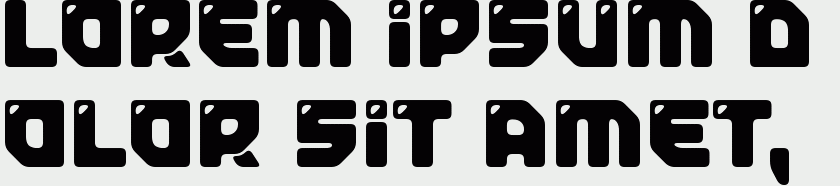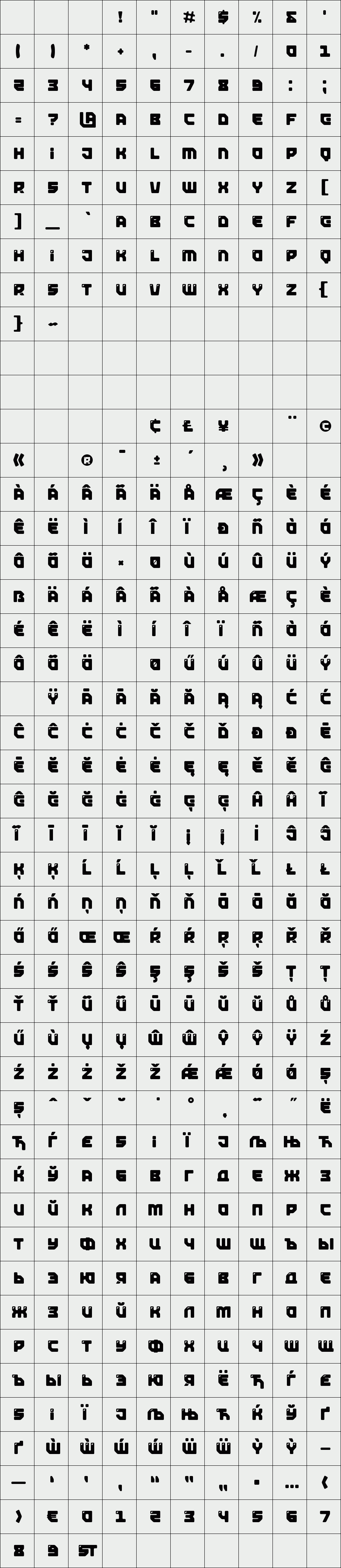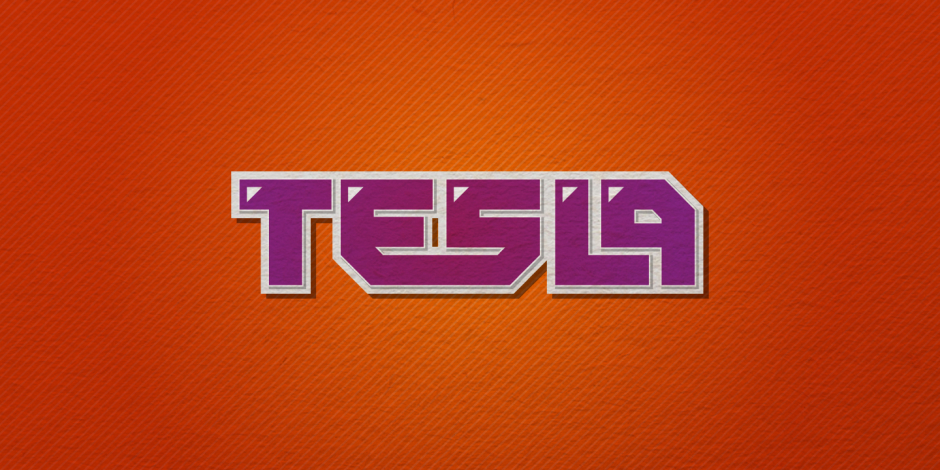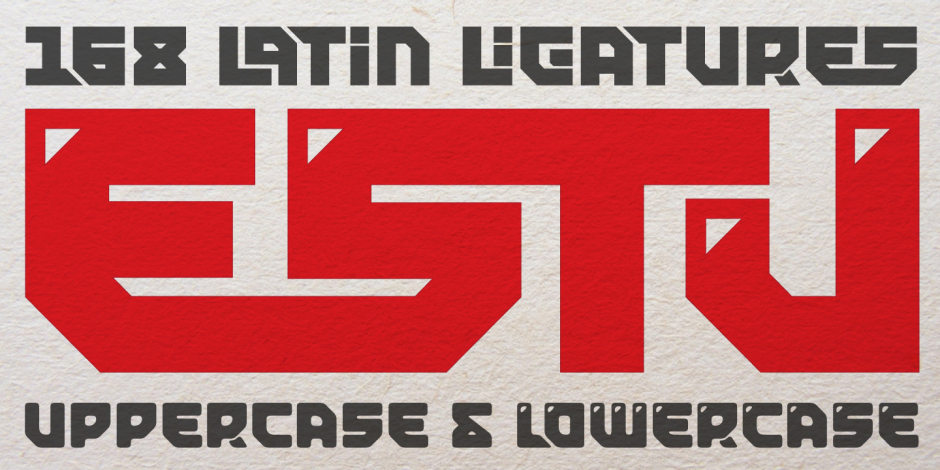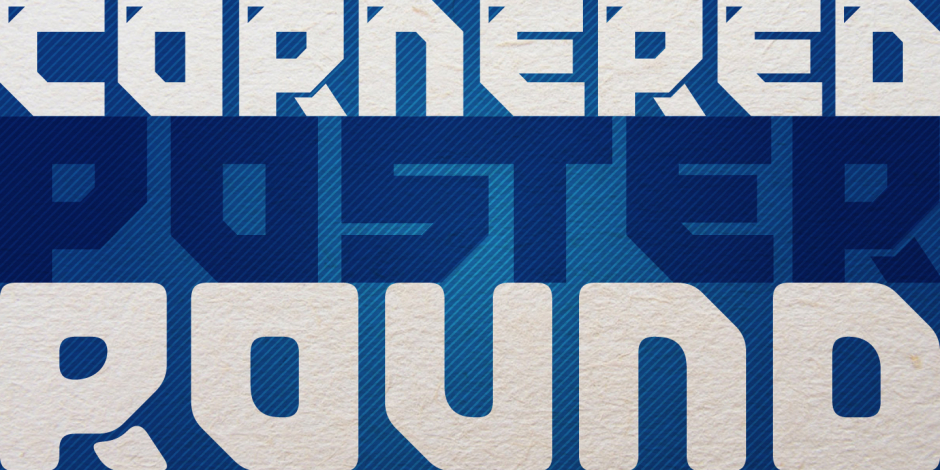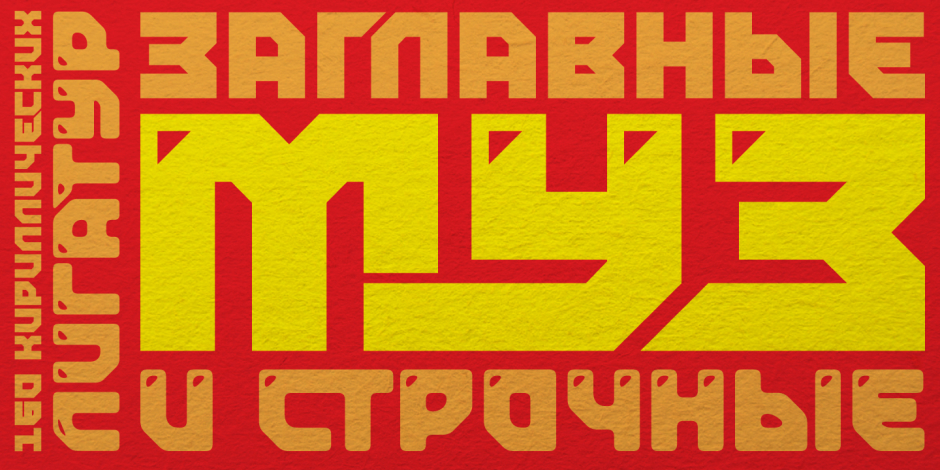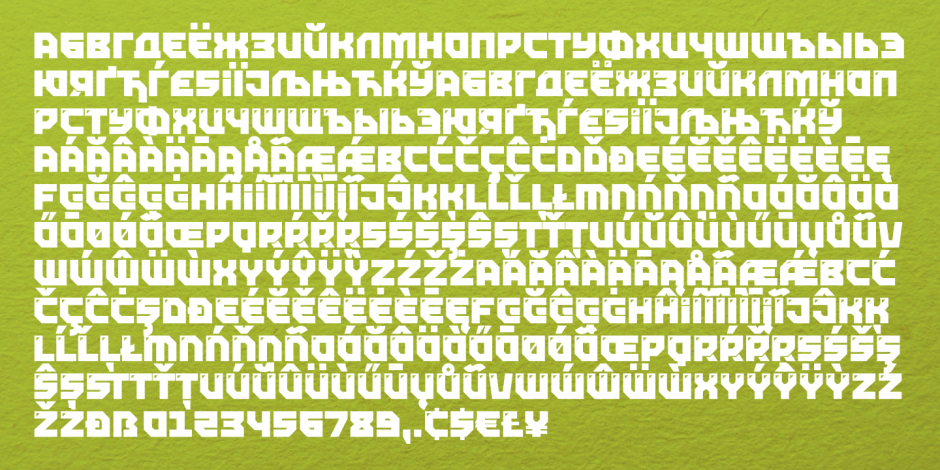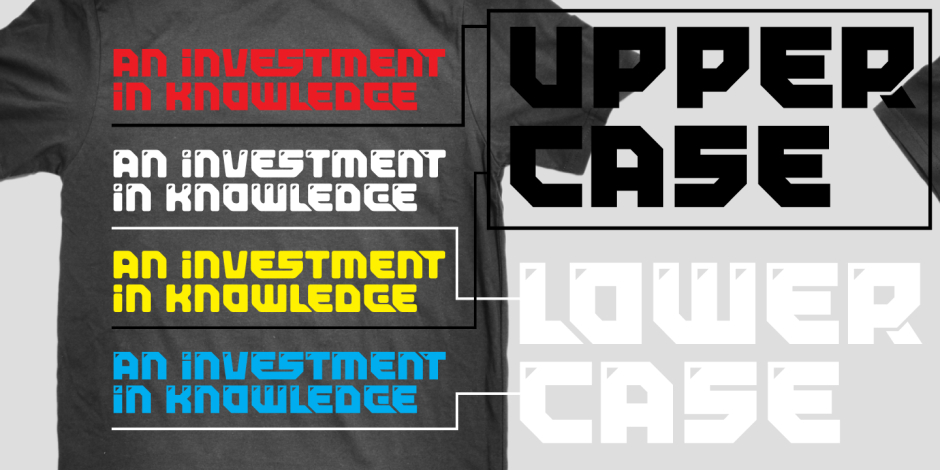
Tesla
/ Tesla Round
This techno font based on logo, which we do a couple years ago. Tesla is good choice for posters, bills, logos and other dysplay typographic tasks. It has numerous latin and cyrillic ligatures for varying your design.
Designer: Gaslight Type Foundry